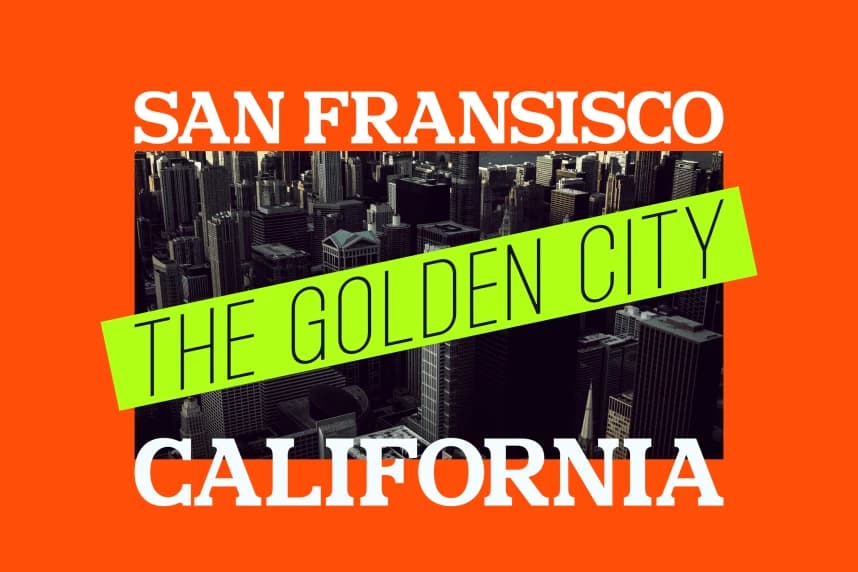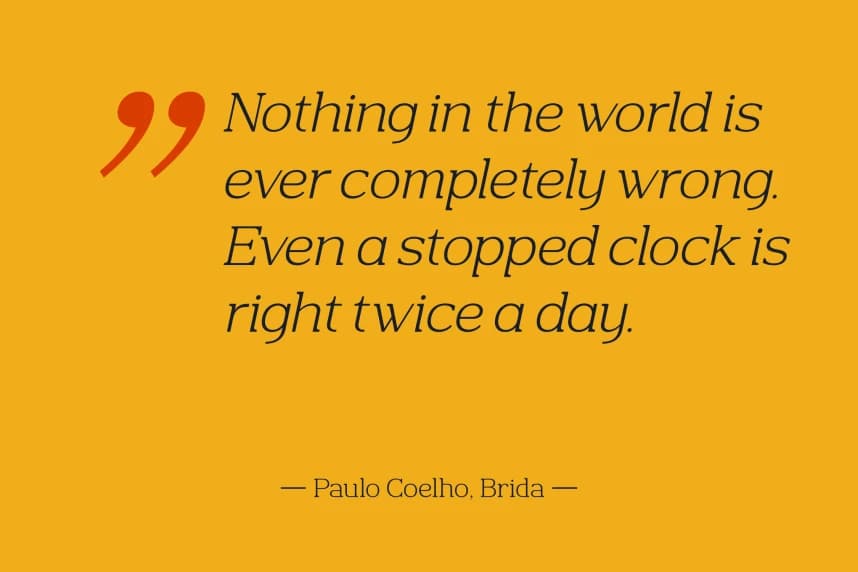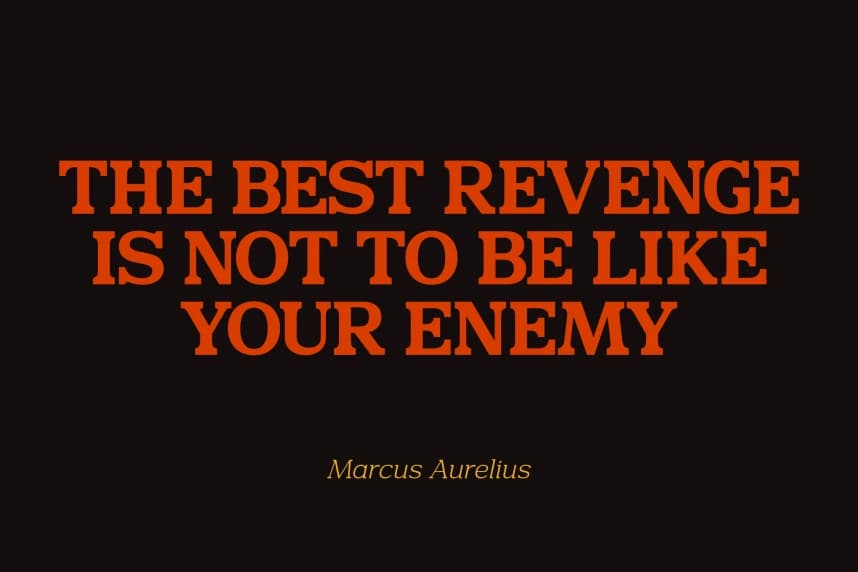
Mulk Slab Serif Font
Mulk Slab Serif Font is a contemporary interpretation of a slab serif typeface that features a modern twist, characterized by wider proportions, robust slab serifs, and slightly higher-stress curves.